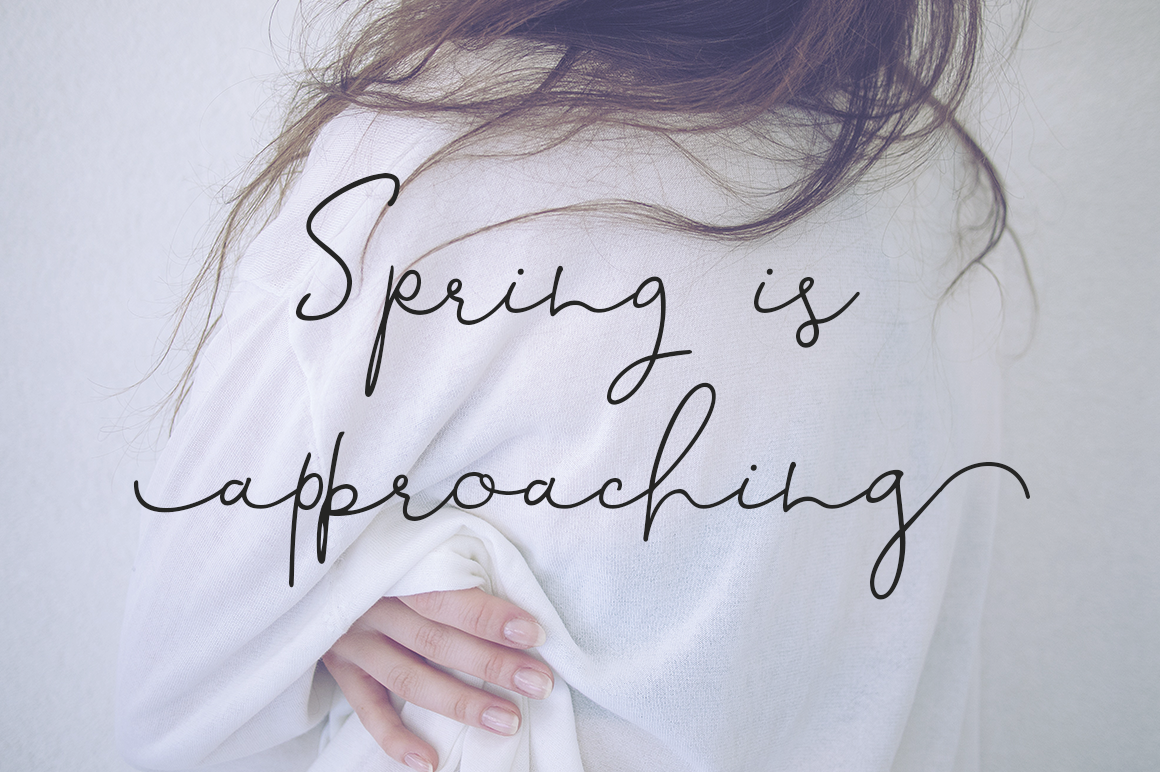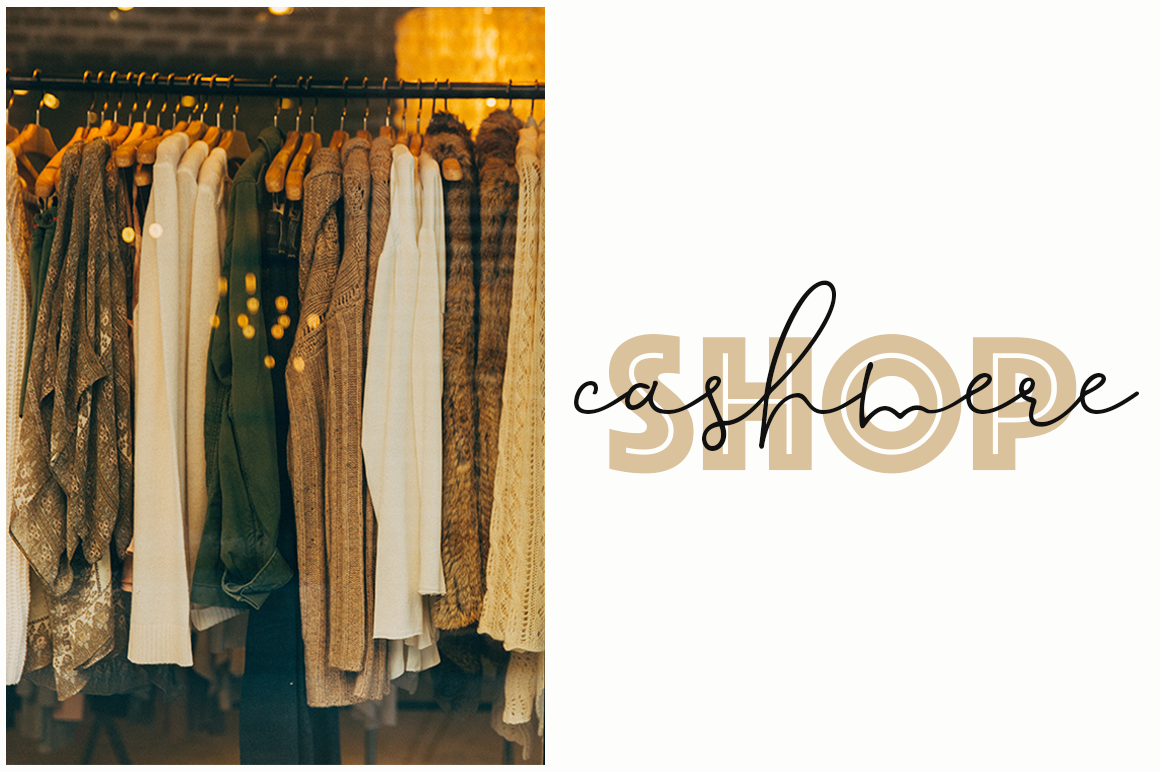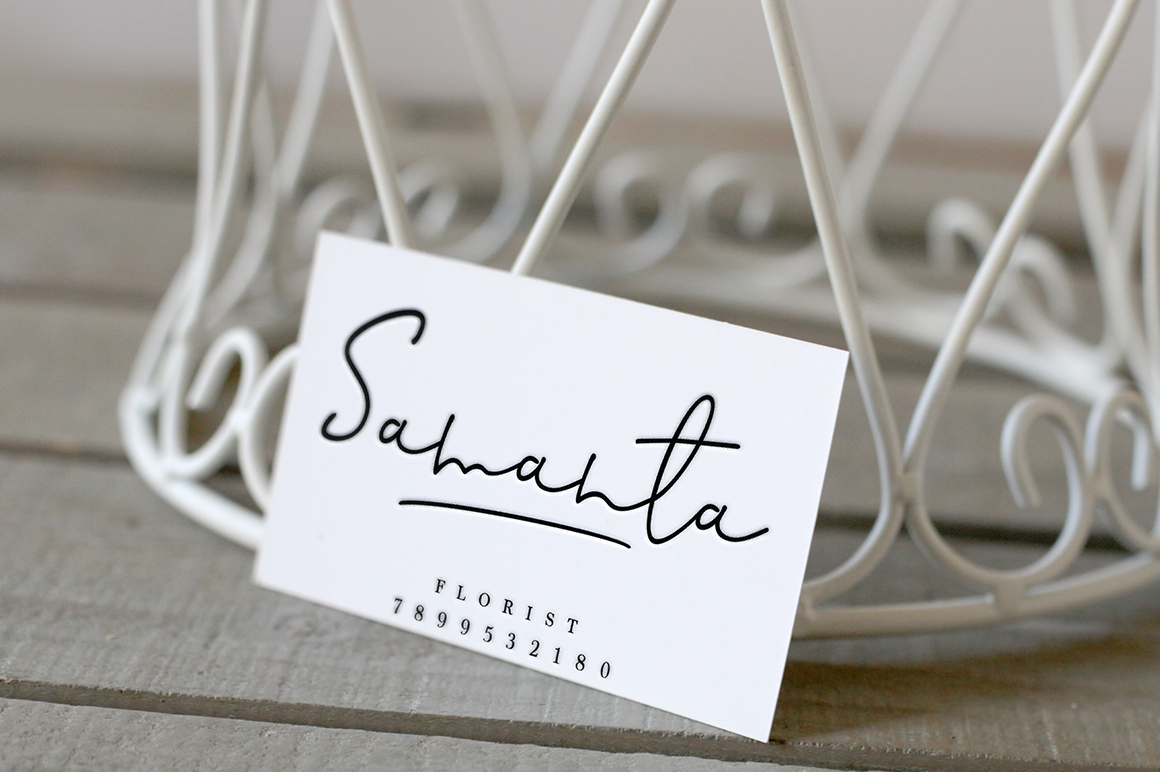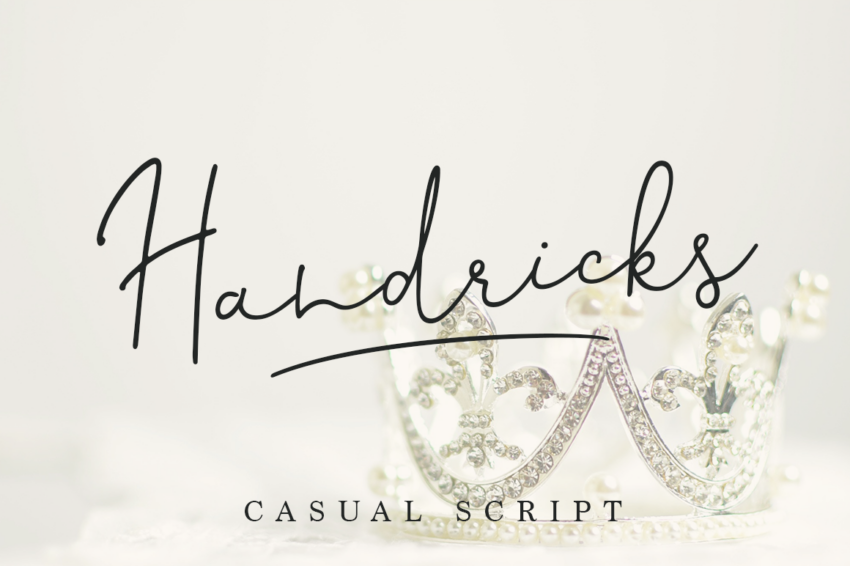
Introduction to Handricks Font
Handricks is a gorgeous and casual script font.
This is a great signature font, and can add a clean and fresh look to your designs .